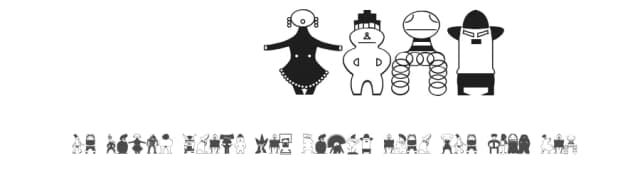
About Junglefood Font
Junglefood is a dingbat font designed by Andrea Bartsch. It includes 63 glyphs, a regular weight, TTF (TrueType) format, and 89 languages. Junglefood is free to download; check the license details on this page before commercial use. Dingbat fonts like Junglefood work best for icons, ornaments, bullet points, and decorative accents.
Junglefood Font is a versatile dingbats font that works for both headings and body text. Pair it with a contrasting sans-serif or serif font to add visual interest and a clear distinction between titles and body copy.
Junglefood Font
Junglefood Font is a dingbats typeface by Andrea Bartsch, ideal for logos, invitations, branding, and creative projects.